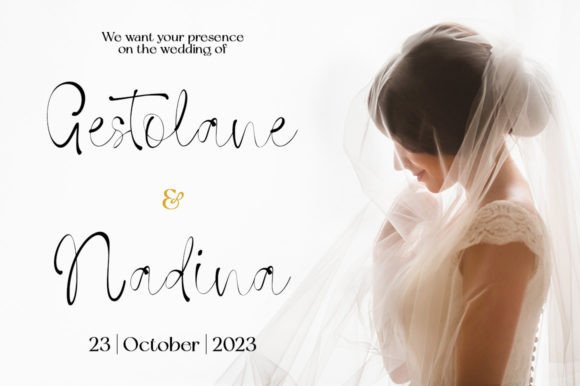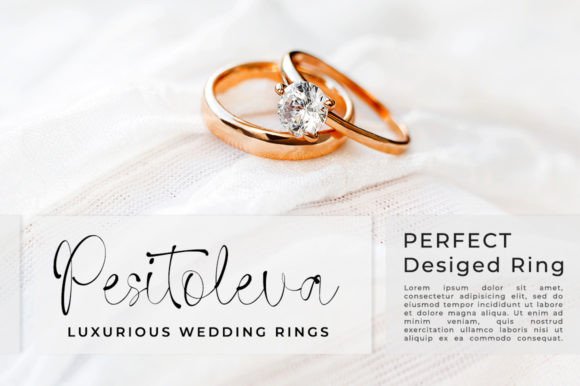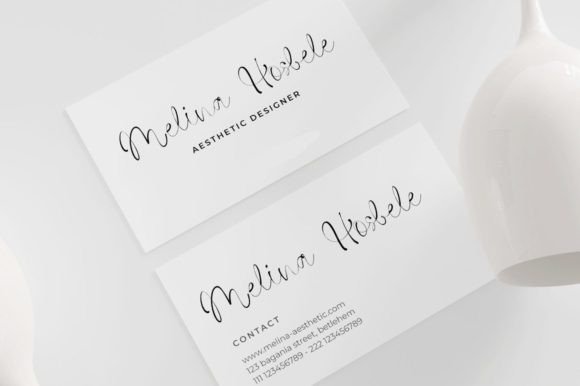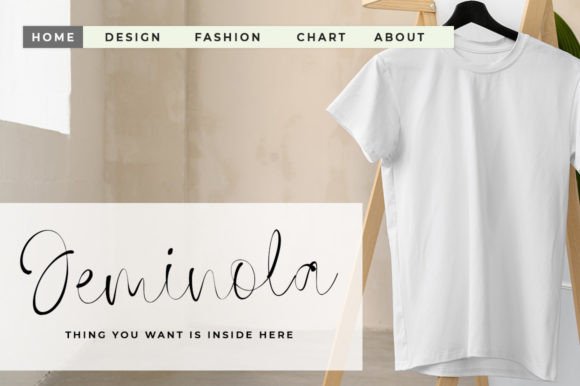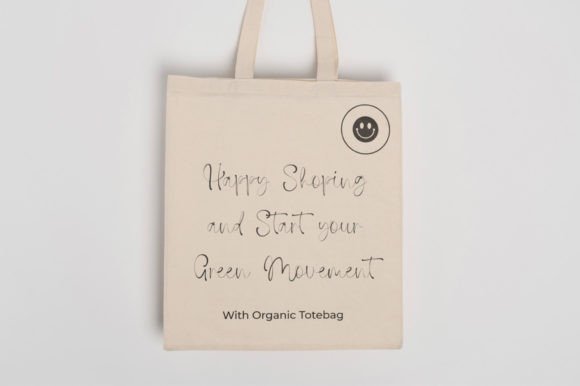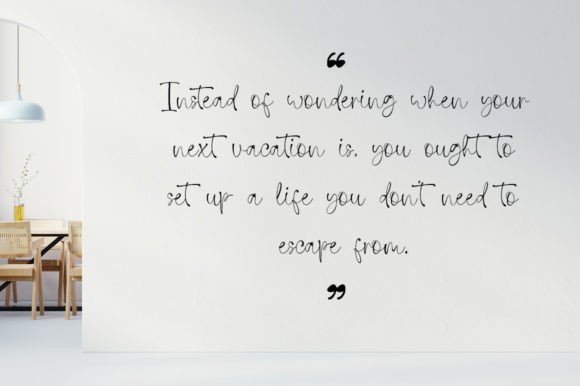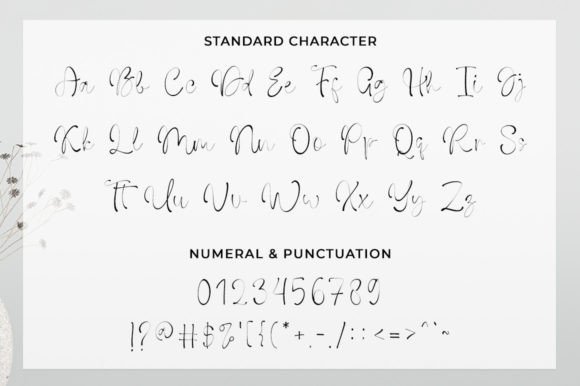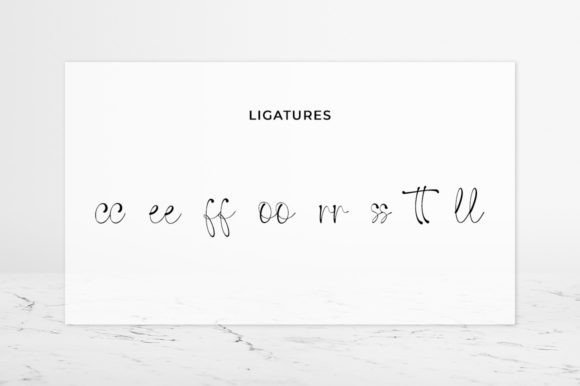
Calentrophe Font
About Calentrophe Font
**Calentrophe** is a captivating script font that exudes elegance and attention to detail. It is meticulously crafted and rich in intricate details, making it a valuable addition to your font library. Regardless of the subject matter, this font has the potential to elevate any creative project and enhance its overall impact.
The font’s script style is the cornerstone of its allure. It adds a touch of sophistication and artistry to your designs, making them stand out and exude a sense of refinement. Whether you’re working on elegant invitations, artistic posters, or any other creative endeavor, **Calentrophe** seamlessly integrates into a wide array of design contexts.
**Calentrophe** is equally versatile in digital and print applications. Whether you’re using it to create a stylish digital design or incorporating it into printed materials, the font maintains its elegance and attention to detail. Its high level of detail ensures that your message is conveyed effectively, while its script style adds a layer of visual sophistication.
What sets **Calentrophe** apart is its ability to convey a sense of artistry and craftsmanship. It invites your audience to engage with your creative ideas in a way that resonates with its refined and meticulously designed quality. With **Calentrophe** as part of your creative toolkit, you have the means to infuse a sense of elegance and creativity into your designs, making them memorable and captivating.
**Calentrophe** offers a wide range of customization options, allowing you to fine-tune your text to align perfectly with your creative vision. This flexibility empowers you to craft designs that match your artistic preferences with precision.
In conclusion, **Calentrophe** is more than just a font; it’s a design asset that elevates your creative projects with elegance, detail, and a sense of artistry. Embrace its script style, and let it inspire you to craft designs that exude refinement and creativity. With **Calentrophe** at your disposal, your creative possibilities are expansive, enabling you to create captivating and memorable works of art through its dazzling and meticulously crafted typography.